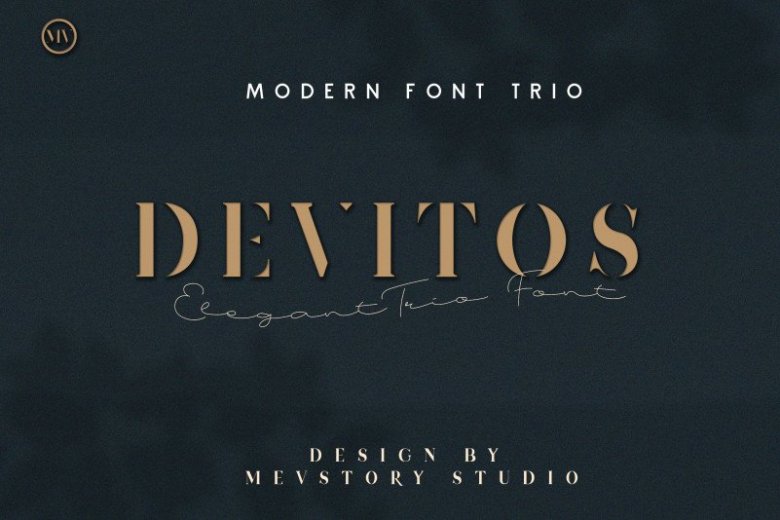
Devitos Modern & Elegant Serif Font
Devitos, from Muhammad Afif, is a modern, elegant and creative serif font. It contains uppercase, lowercase, number, punctuation, symbols and some other glyphs.